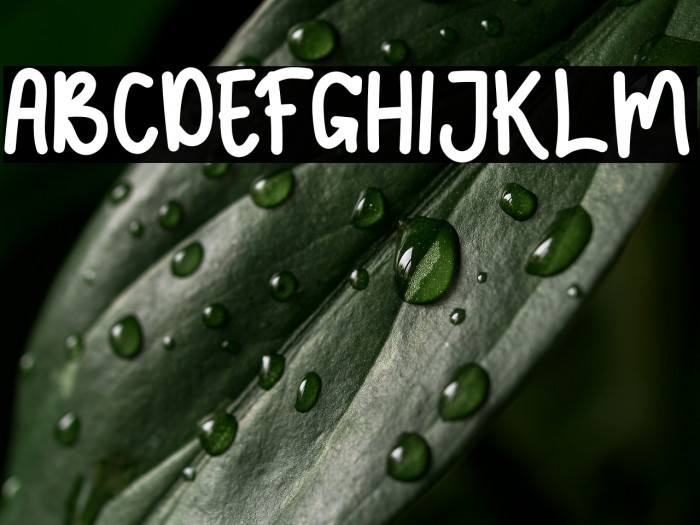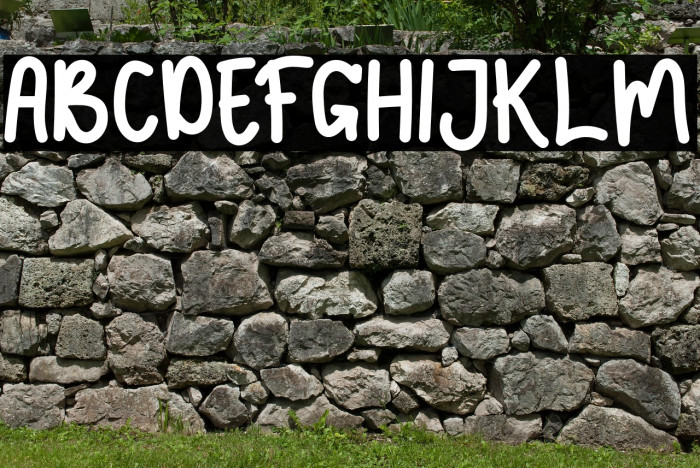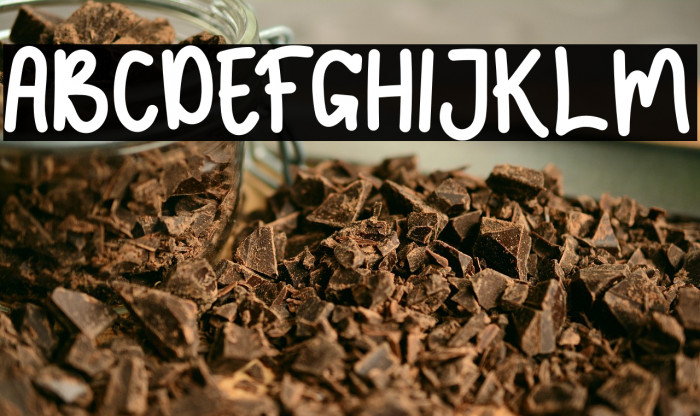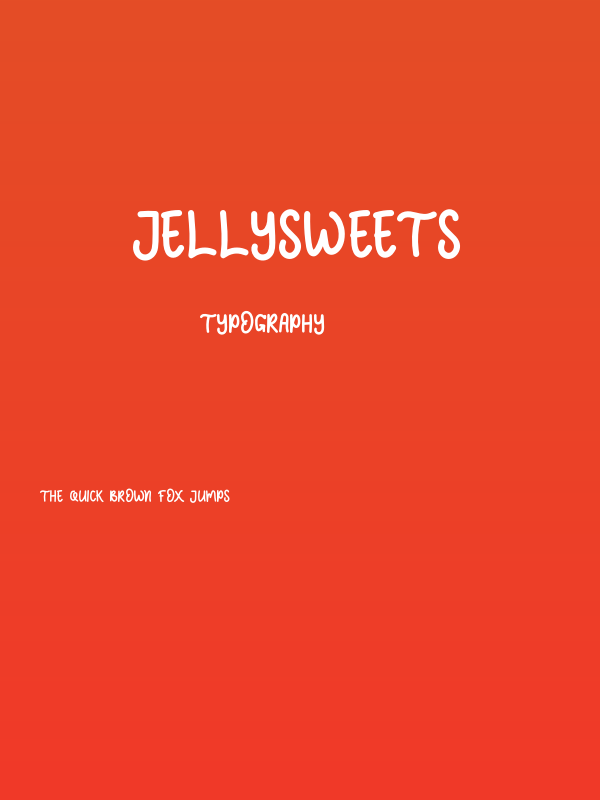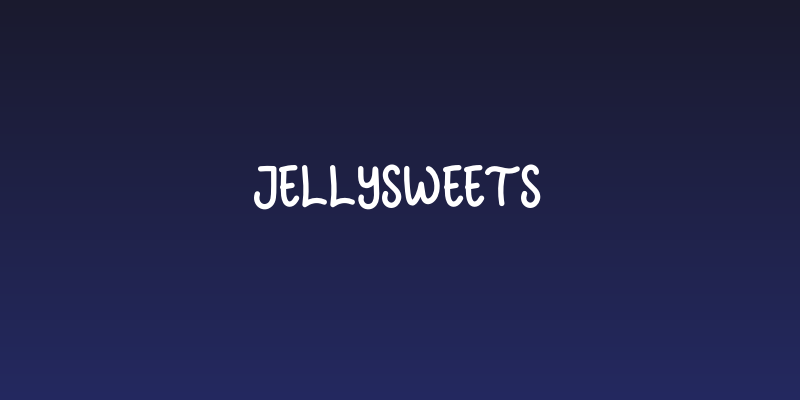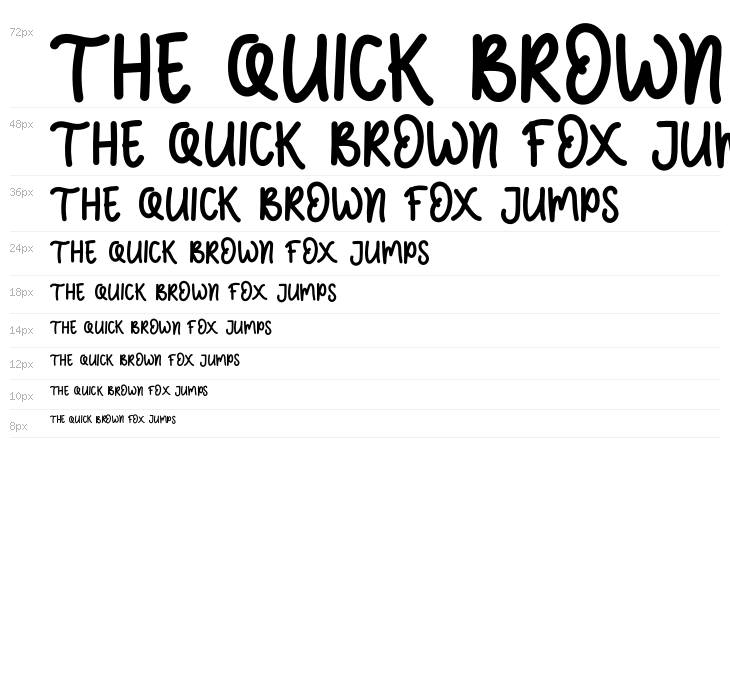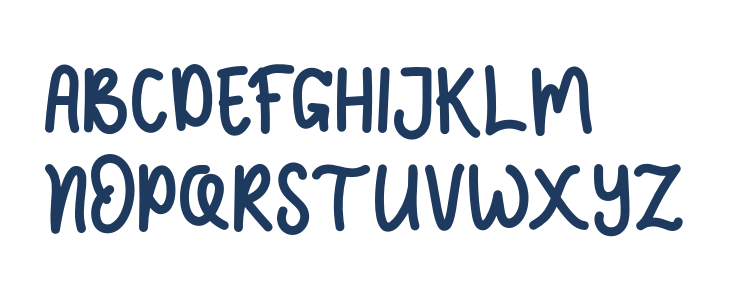
JELLYSWEETS Font
JELLYSWEETS Description
This playful and whimsical font features a bold, rounded style with a handwritten feel. The characters are slightly irregular, giving it a casual and friendly appearance. The strokes are consistent in width, contributing to a cohesive look across all characters. The font includes both uppercase and lowercase letters, numerals, and a variety of special characters, making it versatile for different design needs. Its smooth curves and rounded edges create a sense of approachability and fun, making it ideal for projects that require a lighthearted and informal touch.
| Proposed Projects | Ideal for children's books, playful branding, greeting cards, and social media graphics. |